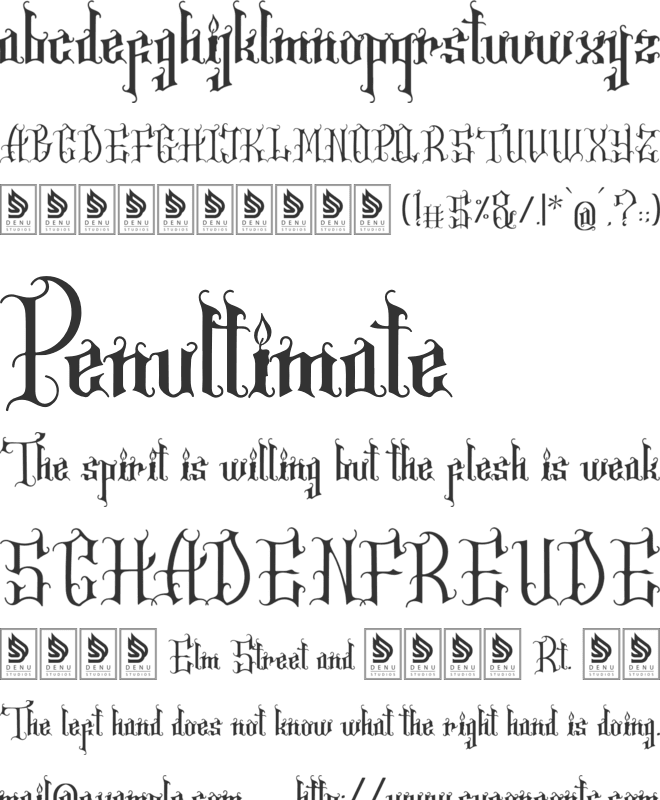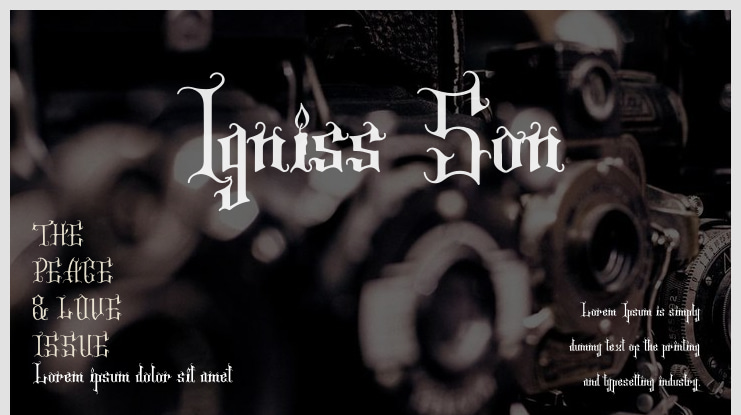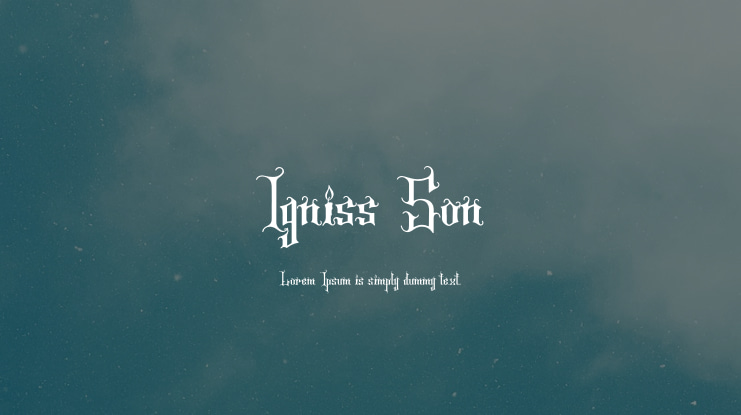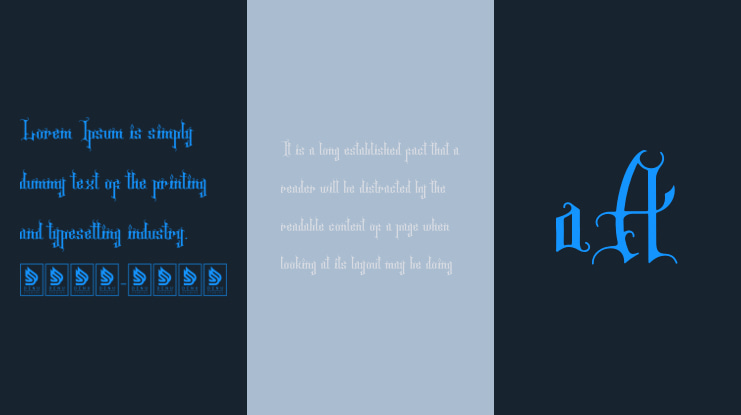
Igniss Son Font
Igniss Son | Tattoo Script Font is ideal for various projects including logos, branding, homeware designs, product packaging, mugs, quotes, posters, shopping bags, t-shirts, book covers, name cards, invitation cards, greeting cards, labels, photography, watermarks, special events, and any other projects that need a tattoo script flair.